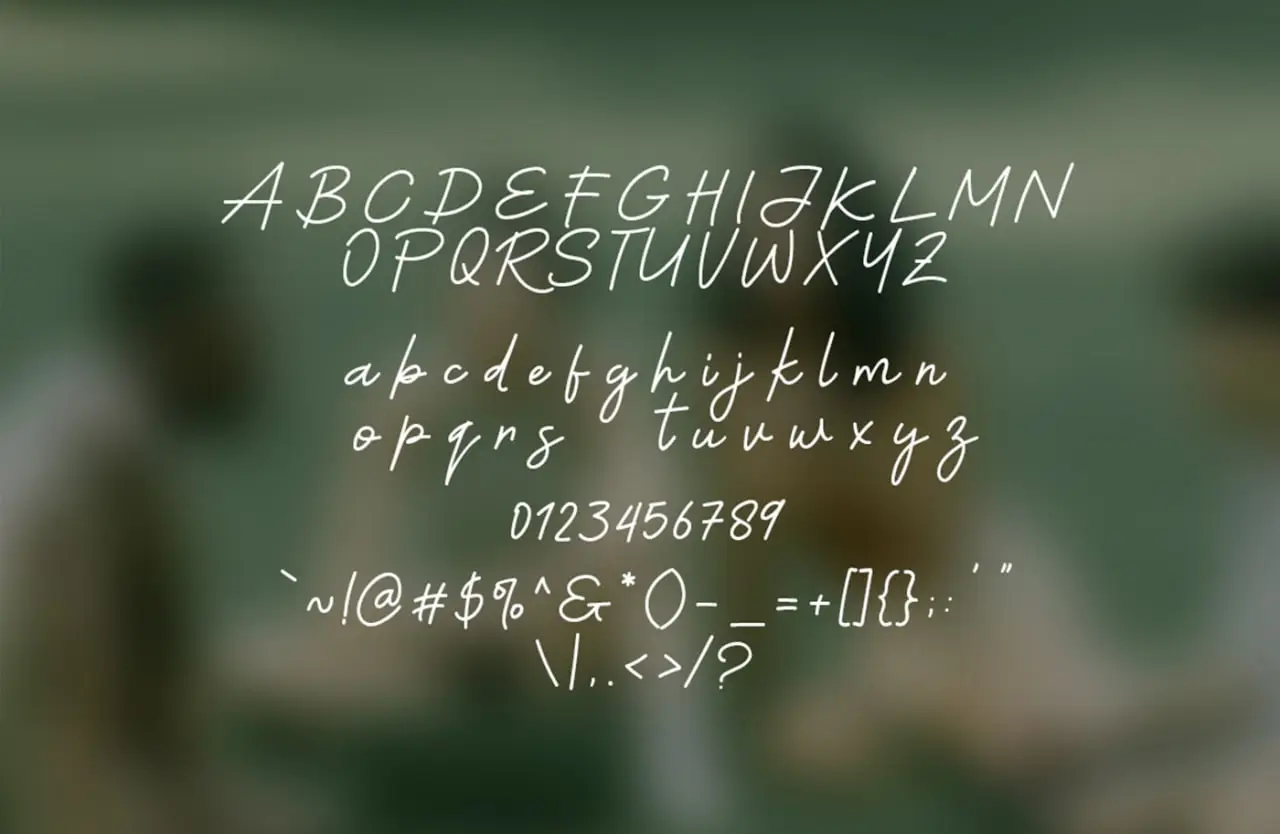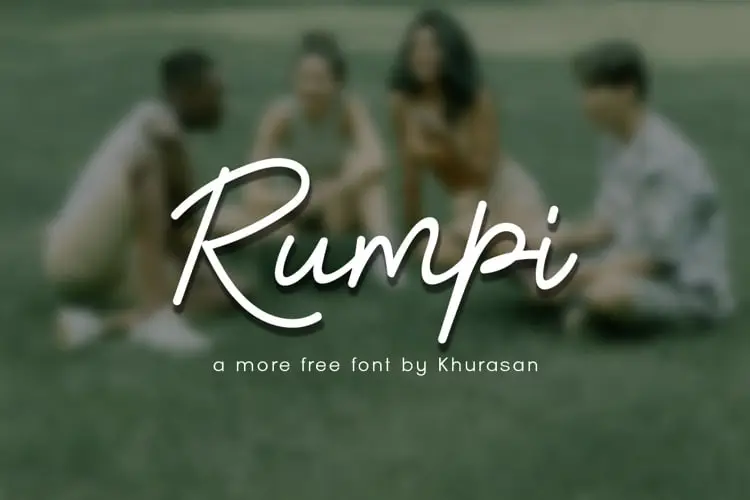
Rumpi Font
The Rumpi Font is a versatile typeface designed to bring a unique flair to your projects. With its playful curves and modern aesthetic, this font is perfect for a variety of applications, from branding to web design.
• Multiple weights for flexibility
• Ideal for logos, posters, and social media graphics
• Use in web design for eye-catching headings and titles
• Perfect for print materials like brochures and flyers